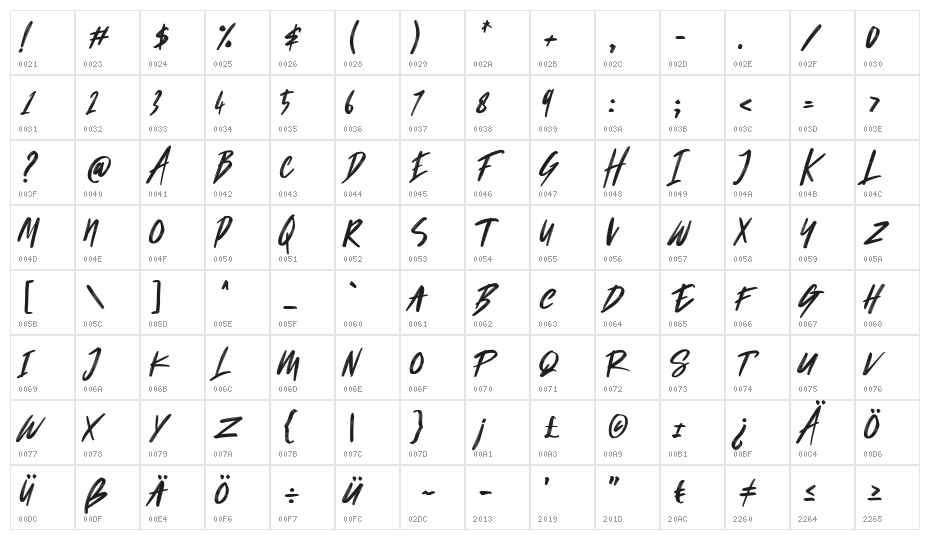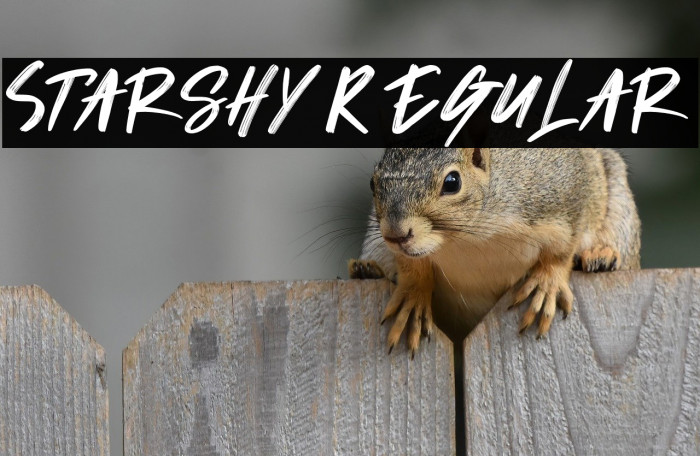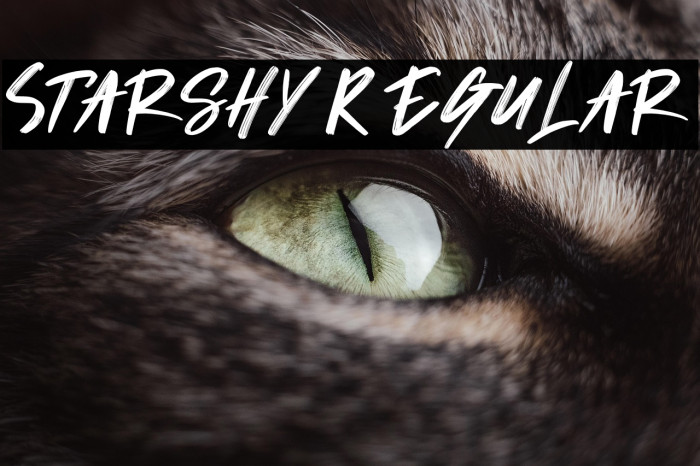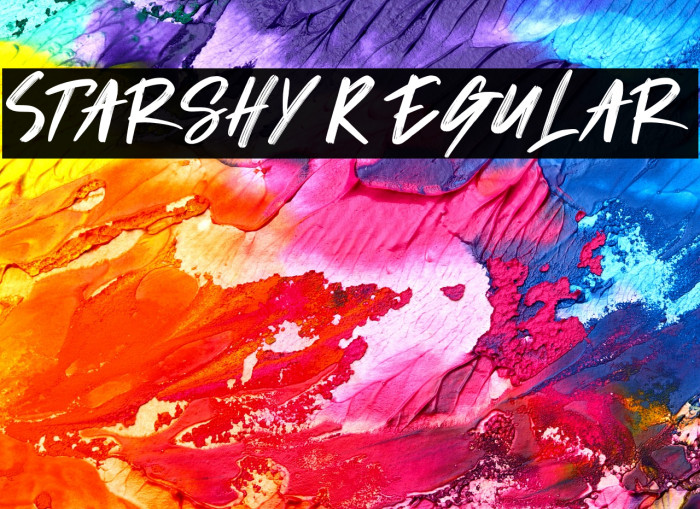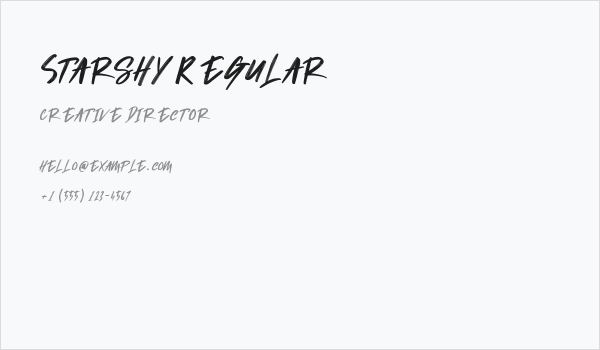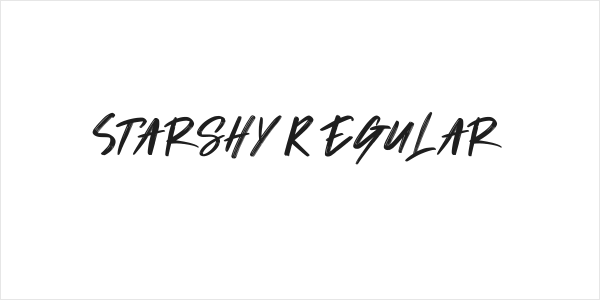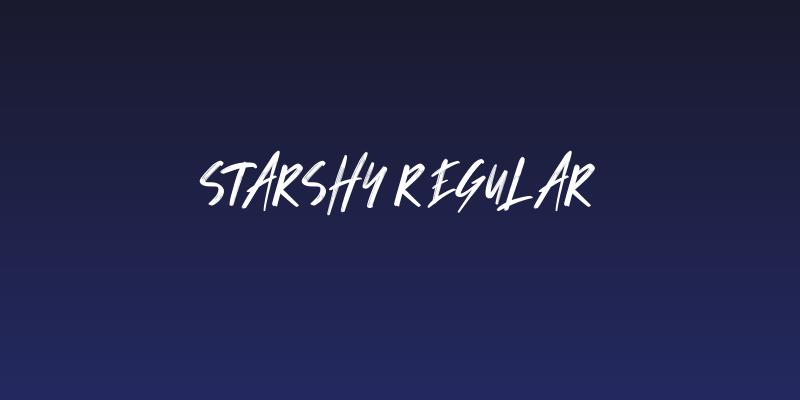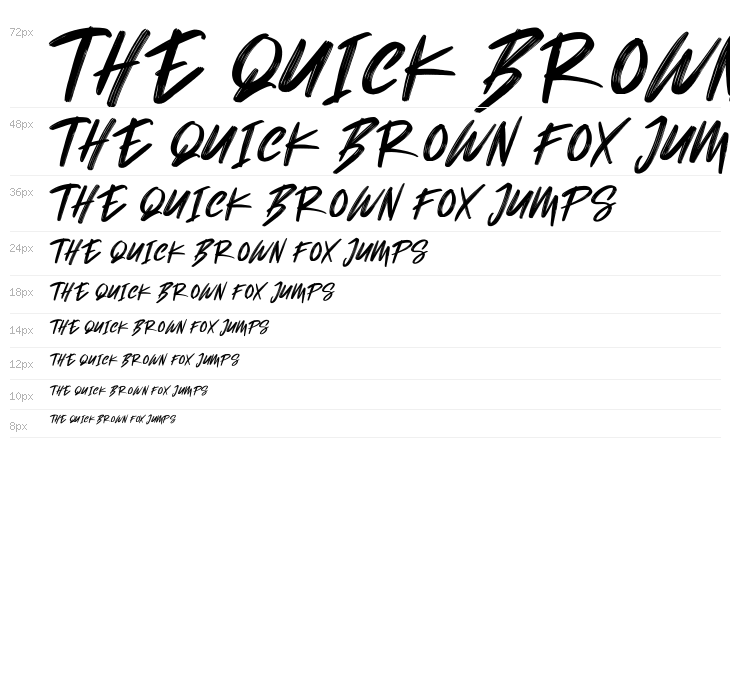
Starshy Regular Font
Starshy Regular Description
This font exhibits a bold and energetic handwritten style, characterized by its dynamic and fluid strokes. The letters are slightly slanted, giving a sense of motion and liveliness. The uppercase and lowercase characters maintain a consistent style, with a playful yet assertive appearance. The numbers and special characters are designed to match the overall aesthetic, ensuring a cohesive look across all elements. The brush-like texture adds a personal touch, making it ideal for projects that require a humanistic and approachable feel.
| Overall Style | Modern, Decorative |
| Use Case | Logos, Headlines, Posters |
| Proposed Projects | This font is perfect for branding projects, social media graphics, posters, and any design that seeks to convey a personal and lively touch. |